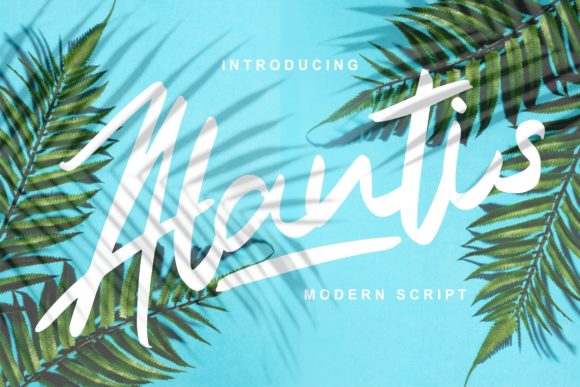
Introducing Alantis Font: A Modern Twist on Classic Typography
Are you tired of using the same old fonts in your design projects? Look no further than Alantis Font, a handwritten font that brings a unique and modern style to any design. Inspired by classic typography, Alantis Font is the perfect addition to any designer’s toolkit.
What is Alantis Font?
Alantis Font is a beautifully crafted handwritten font that is designed to bring a touch of elegance and sophistication to any design project. With its classic inspiration and modern twist, Alantis Font is perfect for designers who want to add a unique touch to their work.
Key Features of Alantis Font
- Handwritten Style: Alantis Font has a beautiful handwritten style that is perfect for adding a personal touch to your designs. Whether you’re creating a logo, a poster, or a website, Alantis Font is sure to make your design stand out.
- Classic Inspiration: Alantis Font is inspired by classic typography, which gives it a timeless and elegant feel. However, it also has a modern twist that makes it perfect for contemporary design projects.
Benefits of Using Alantis Font
So why should you use Alantis Font in your design projects? Here are just a few benefits of using this amazing font:
- Unique Style: Alantis Font has a unique and modern style that will set your designs apart from the crowd. Whether you’re creating a logo, a poster, or a website, Alantis Font is sure to make your design stand out.
- Versatility: Alantis Font is perfect for a wide range of design projects, from logos and posters to websites and social media graphics. Its versatility makes it a great addition to any designer’s toolkit.
Who is Alantis Font for?
Alantis Font is perfect for designers and crafters who want to add a unique and modern touch to their designs. Whether you’re a professional designer or a DIY crafter, Alantis Font is a great addition to your toolkit.
- Graphic Designers: Alantis Font is perfect for graphic designers who want to create unique and eye-catching designs. Whether you’re creating a logo, a poster, or a website, Alantis Font is sure to make your design stand out.
- DIY Crafters: Alantis Font is also perfect for DIY crafters who want to add a personal touch to their projects. Whether you’re creating handmade cards, scrapbooking pages, or other crafts, Alantis Font is a great way to add a unique and modern style.
Alantis Font is a beautifully crafted handwritten font that is perfect for designers and crafters who want to add a unique and modern touch to their designs. With its classic inspiration and modern twist, Alantis Font is sure to make your designs stand out. Its PUA encoding makes it easy to access all of the fantastic glyphs and swashes, and its versatility makes it perfect for a wide range of design projects.